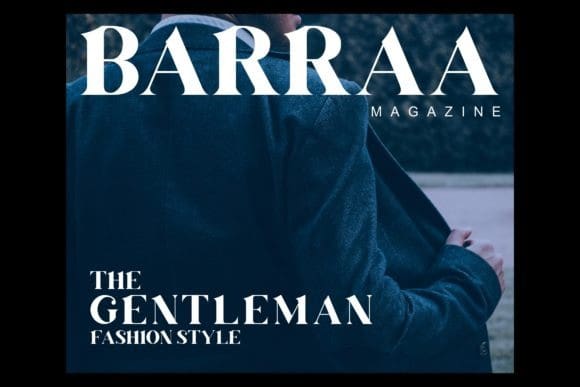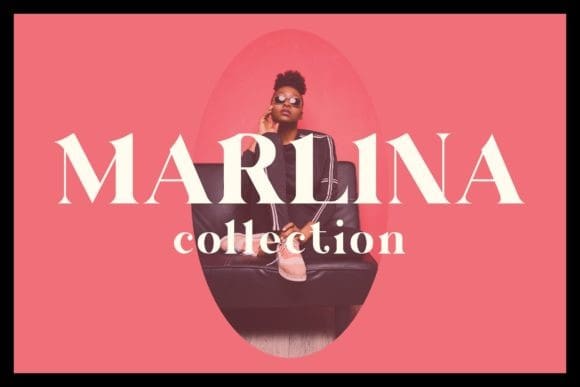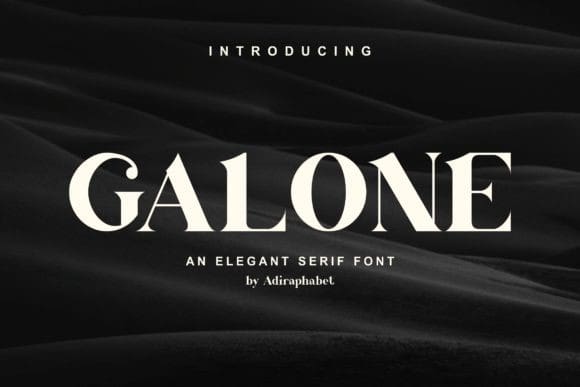
Galone Font
Galone Font is an elegant, bold and luxurious serif font. Irrespective of the topic, this font will be an incredibly asset to your fonts’ library, as it has the potential to elevate any creation.